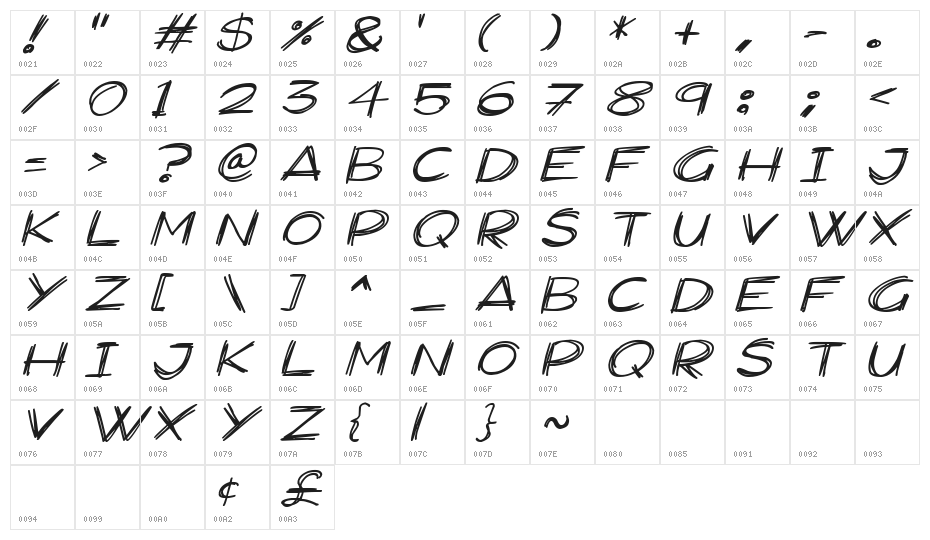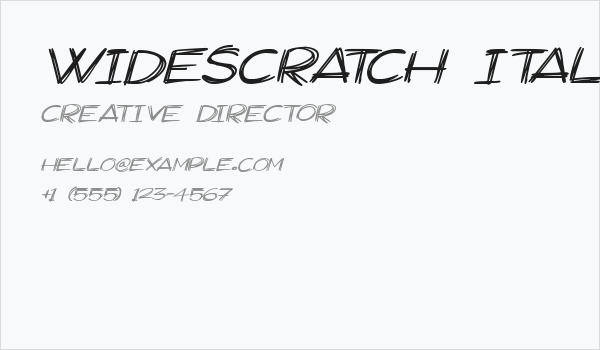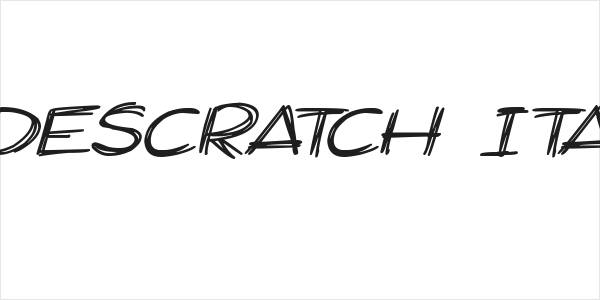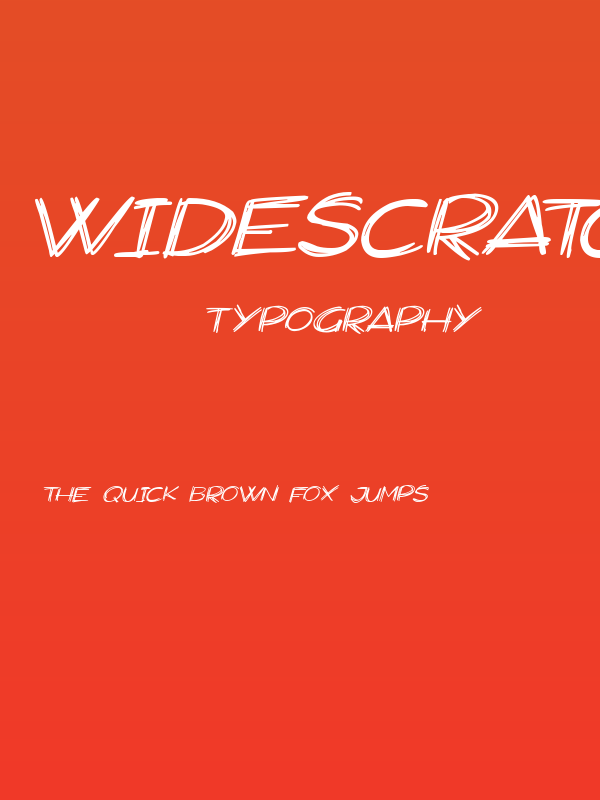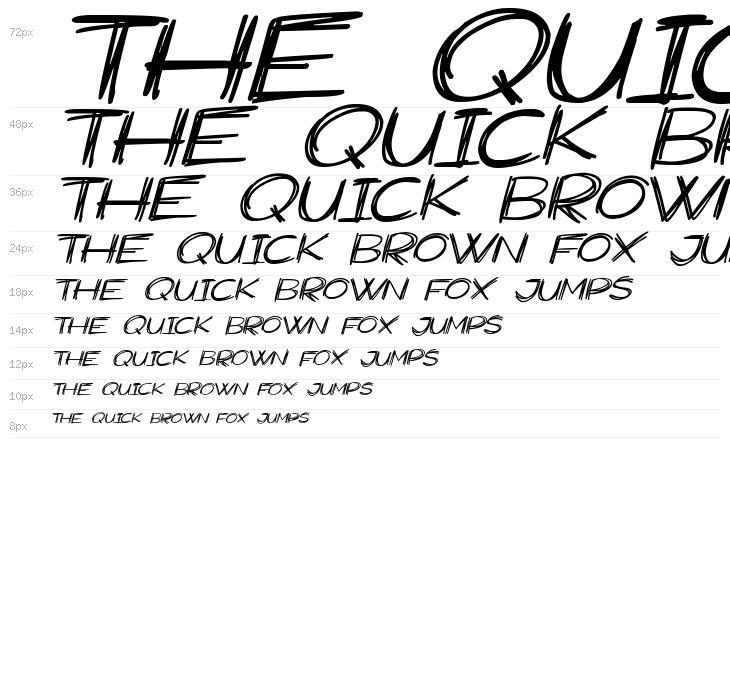
Widescratch Italic Font
Widescratch Italic Description
This font features a dynamic and energetic style with a hand-drawn appearance. The characters are italicized, giving them a sense of motion and fluidity. The strokes are uneven, with a scratchy texture that adds a raw, artistic feel. The uppercase and lowercase letters maintain a consistent slant, while the numbers and special characters follow the same design principles. This font's unique style makes it stand out, offering a creative and informal aesthetic.
| Proposed Projects | Ideal for creative projects such as posters, album covers, and artistic branding materials. |